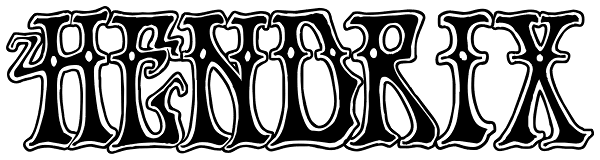
Hendrix
I had a chat recently with a customer who is a big fan of lettering from the psychedelic poster era. The discussion got me thinking about poster lettering we hadn't yet made into fonts, and a particular sample from a Jimi Hendrix poster I had played...